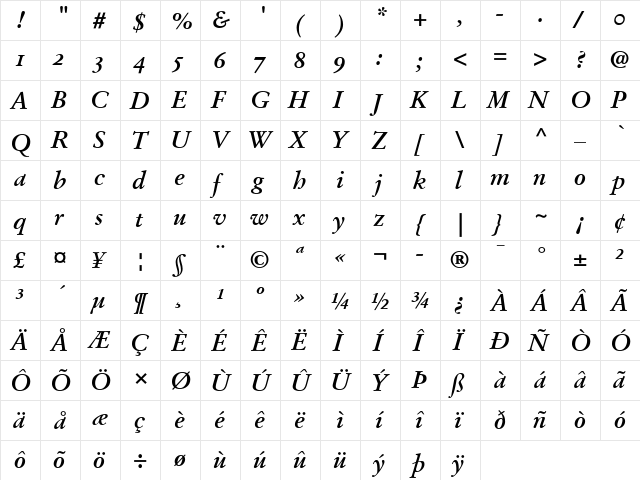
Stempel Garamond RomanOsF Bold Italic Font Preview
Design Context for Stempel Garamond RomanOsF Typeface
Stempel Garamond RomanOsF offers clean, dependable letterforms without strong stylistic allegiance, making it a practical choice for designers who need flexibility. The slanted form adds forward momentum and visual energy. The heavy weight commands attention and anchors typographic hierarchies.
Pro Tip: Try Stempel Garamond RomanOsF for annotation and caption copy alongside an upright companion — the contrast in angle creates a dynamic but ordered typographic system.